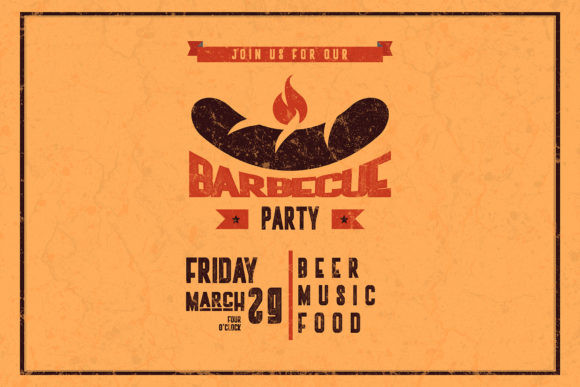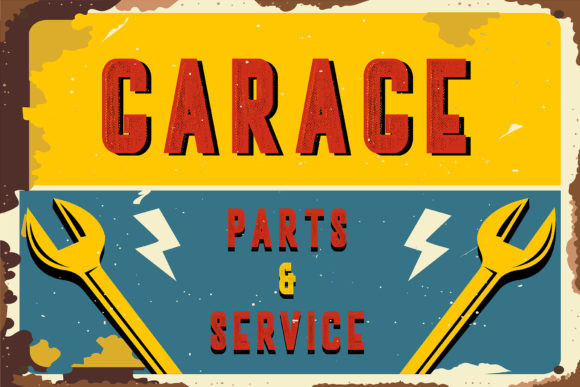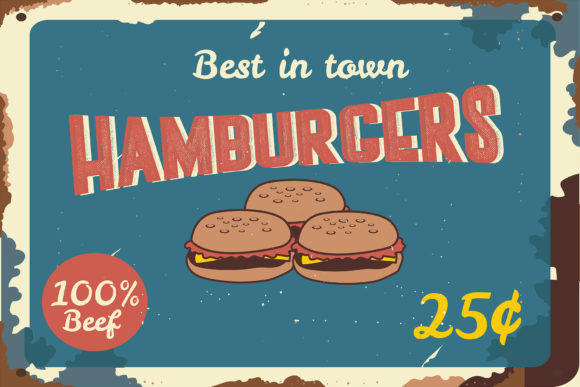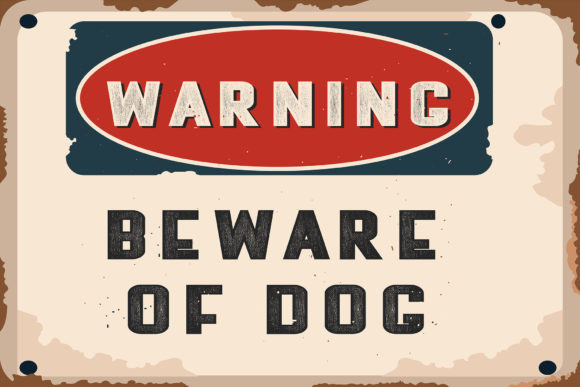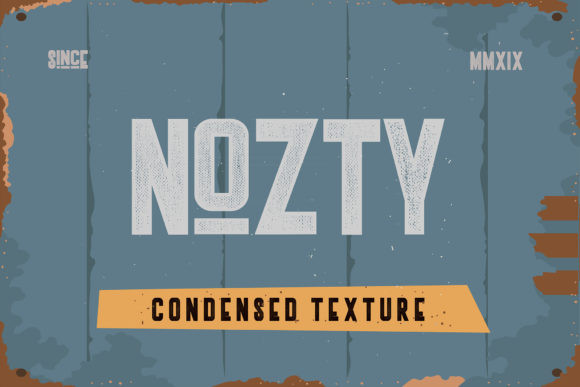
Nozty Typeface
Thank you for looking Nozty Font. This is a textured font, clean sans font, it’s designed with a modern and clean style. It’s suitable for branding, logo, printing and many other designs. It’s design and shared by Vasgaz.creative. Nozty Textured is a tall and condensed sans serif font. It’s equally memorable, and fashionable and will add a timeless elegance to any design project! A great font for DIY projects, holiday wall art, printables, apparel designs, gift tags, stationery cards, personalized gifts, invitations, flyers, logos, and more!